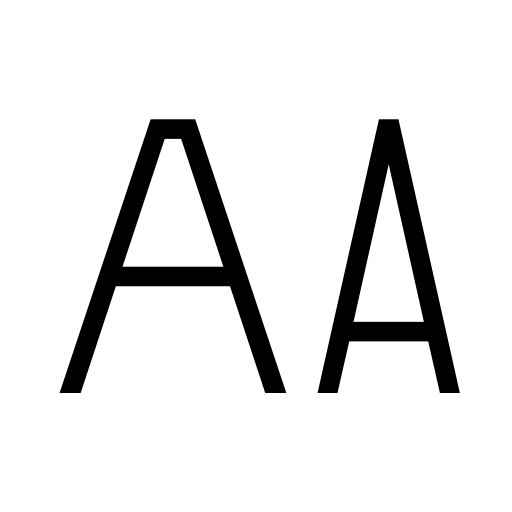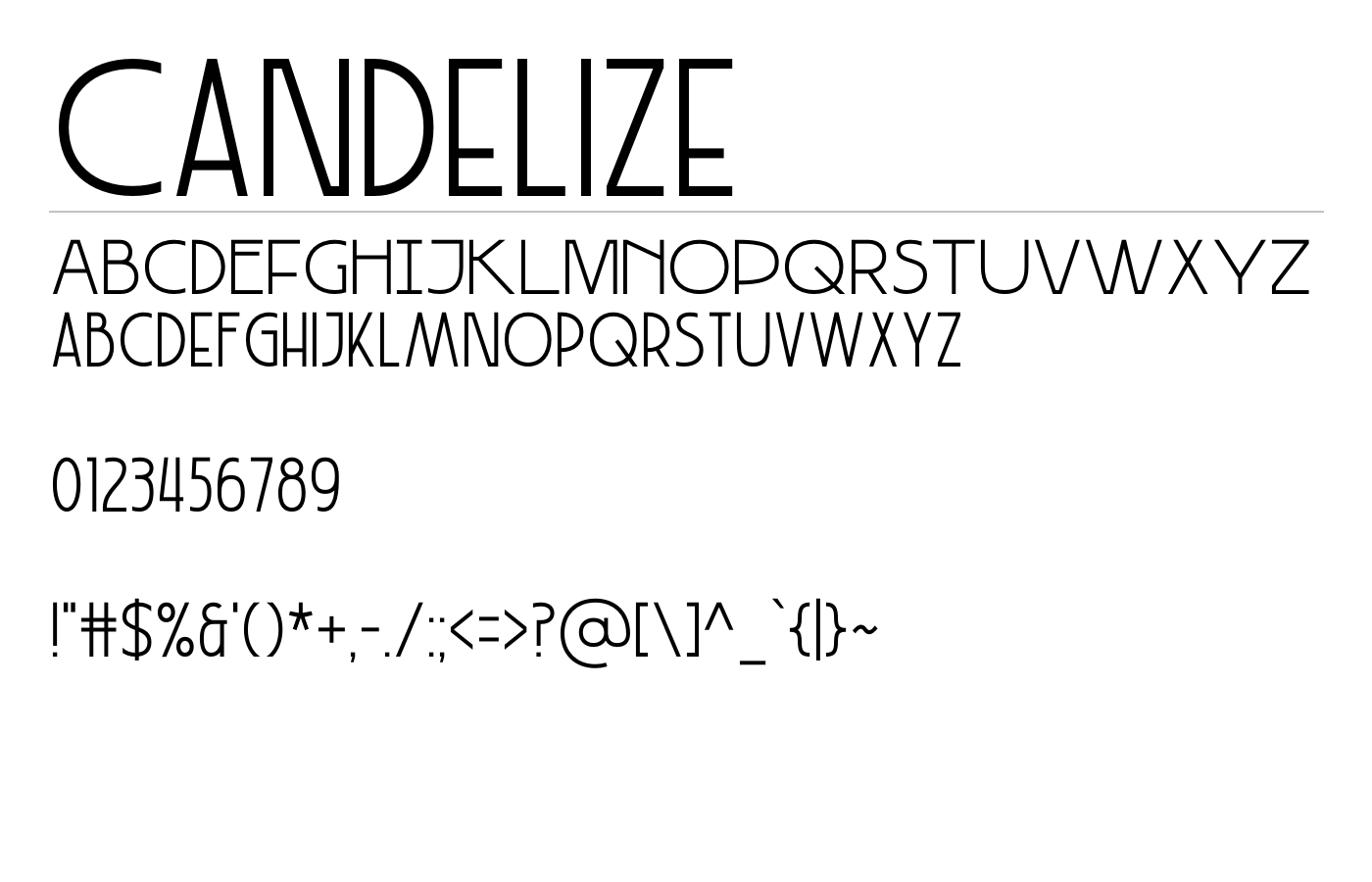
Candelize is a slender, elegant sans-serif font characterized by its tall, narrow letterforms and low stroke contrast, which gives it a modern and minimalist feel. Its clean lines and lightly geometric shapes make it an excellent choice for stylish headlines, branding, and editorial designs that require a sleek, contemporary touch without sacrificing readability. This font works well in fashion, tech, and luxury contexts where a refined yet distinctive appearance is desired.
Candelize Font
About Candelize Font
| Font family | Candelize Font |
| Designer | Muhammad Husni Haikal |